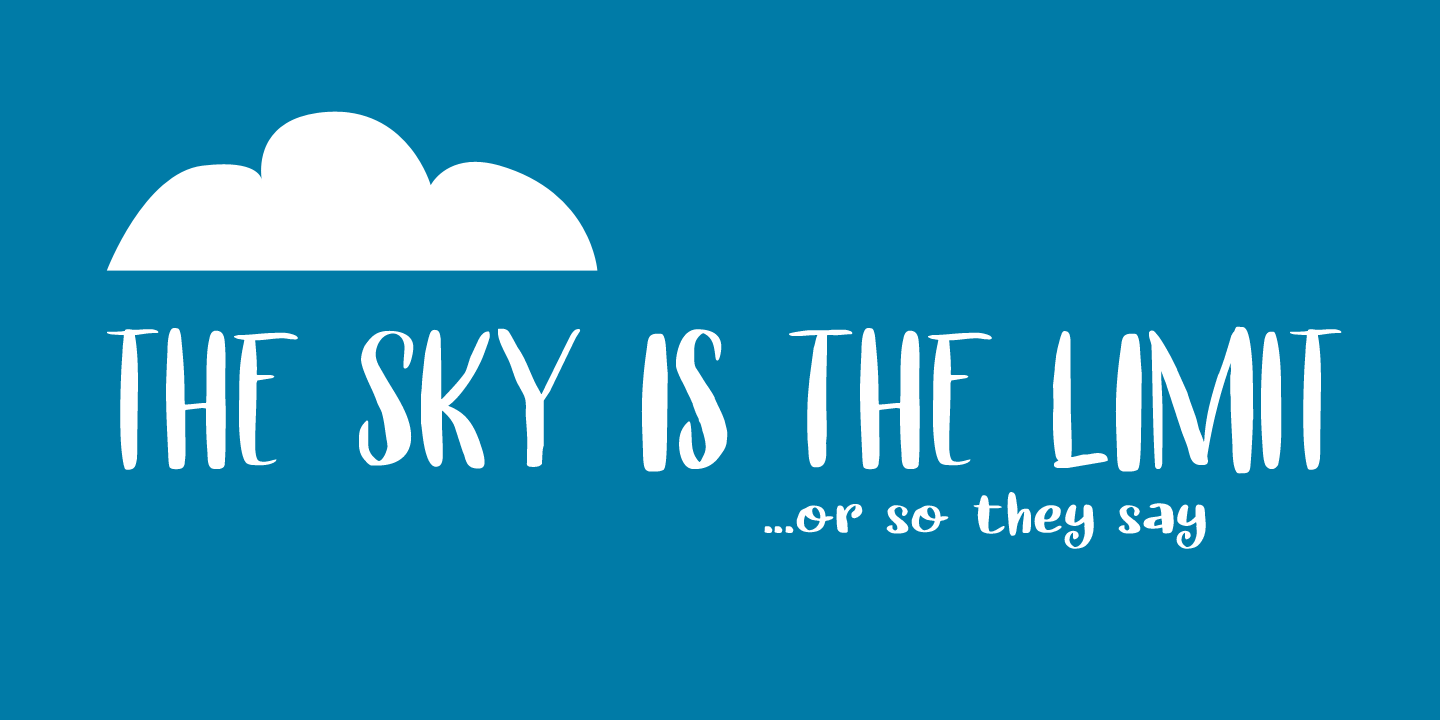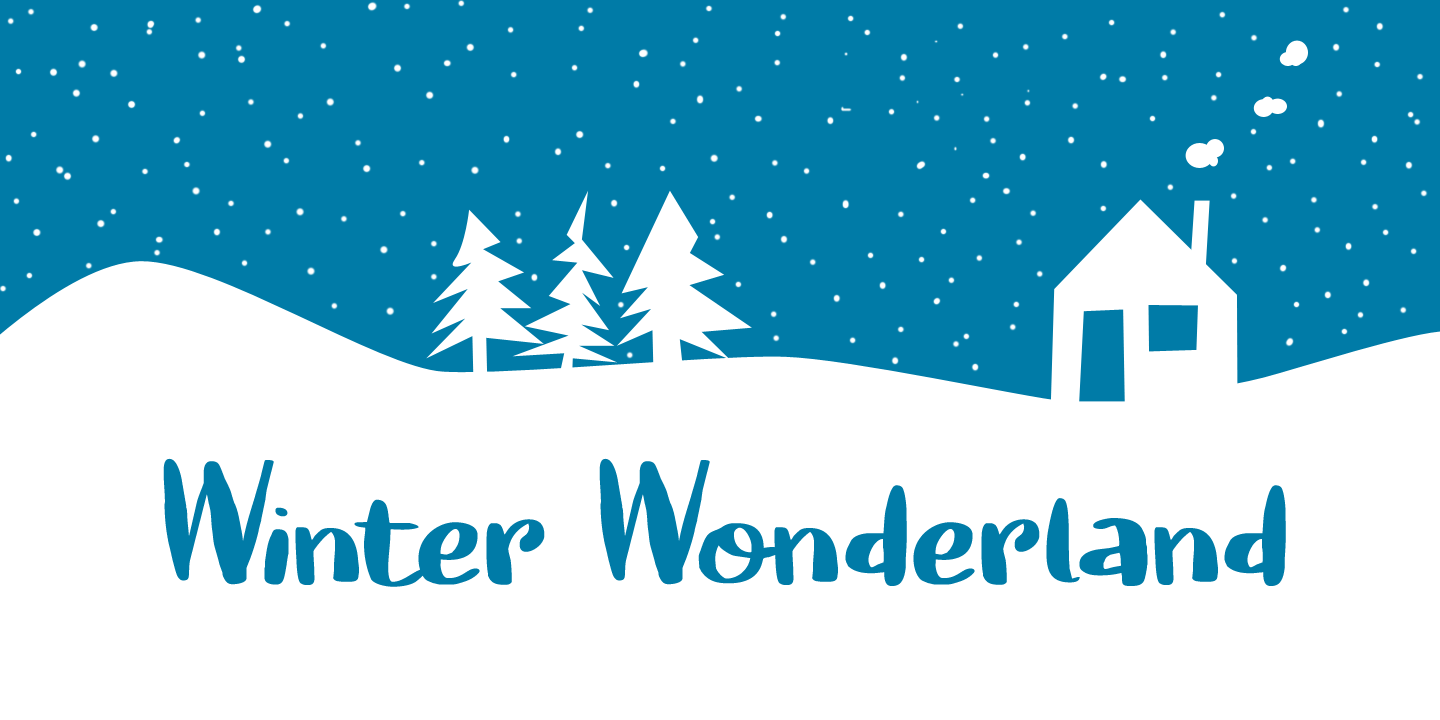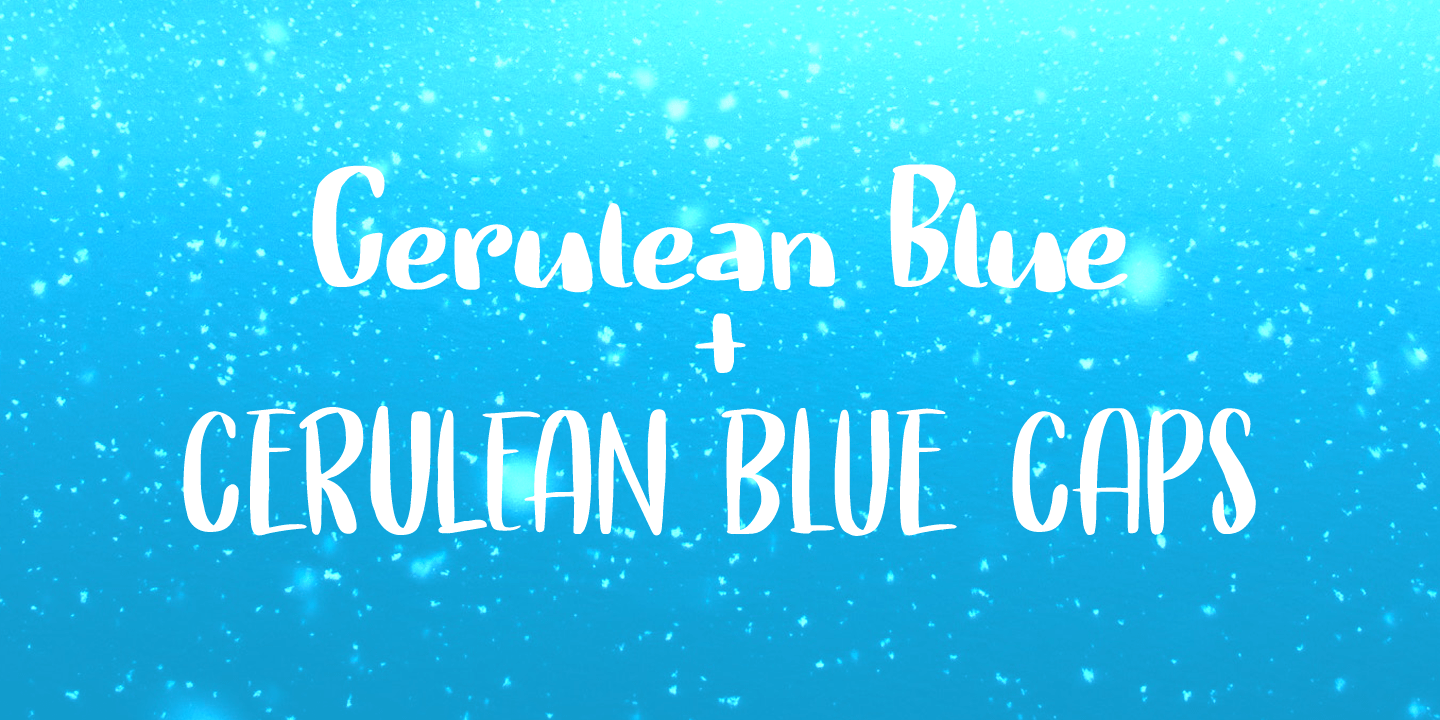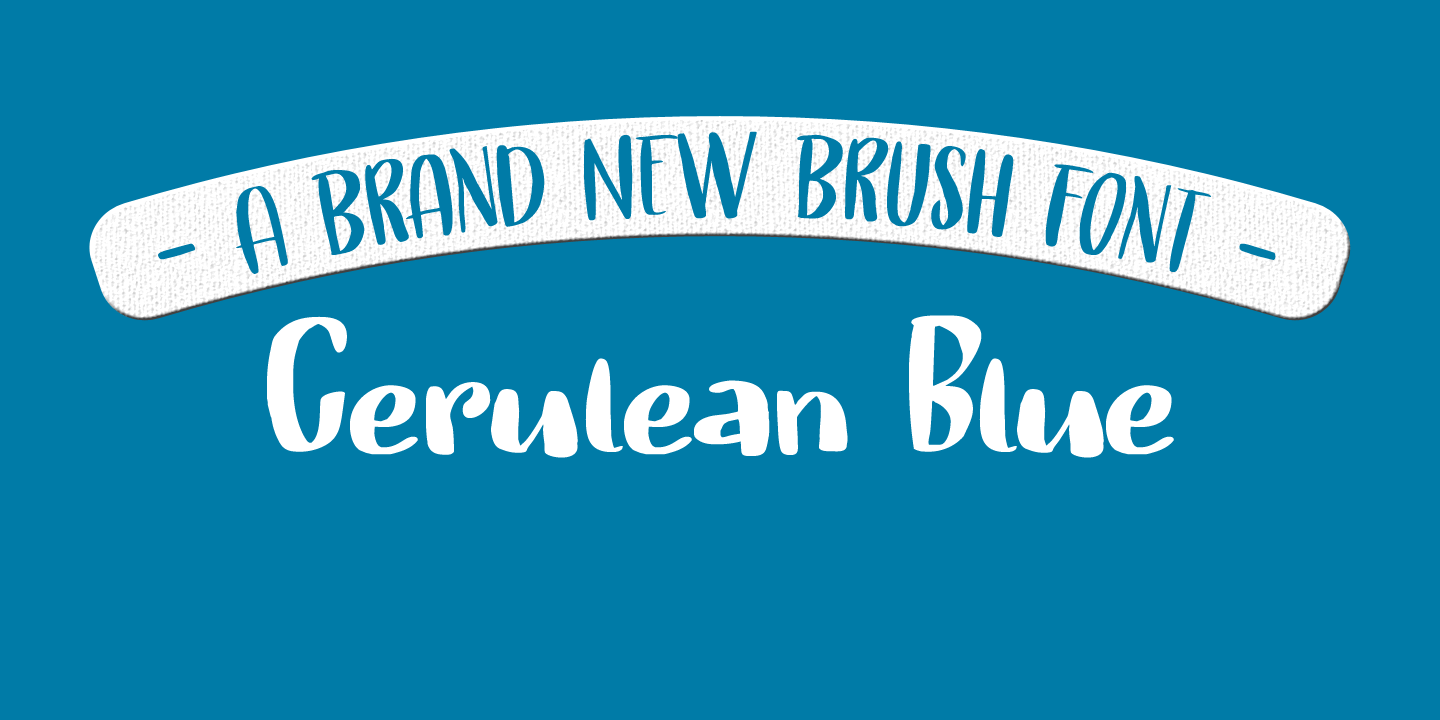
About Cerulean Blue
Cerulean comes from the Latin word caeruleus, meaning dark blue. I have always liked this color, so I decided to name a font after it. Cerulean Blue is a handmade brush font family, consisting of a nice handwritten font and a caps font. Both fonts come…